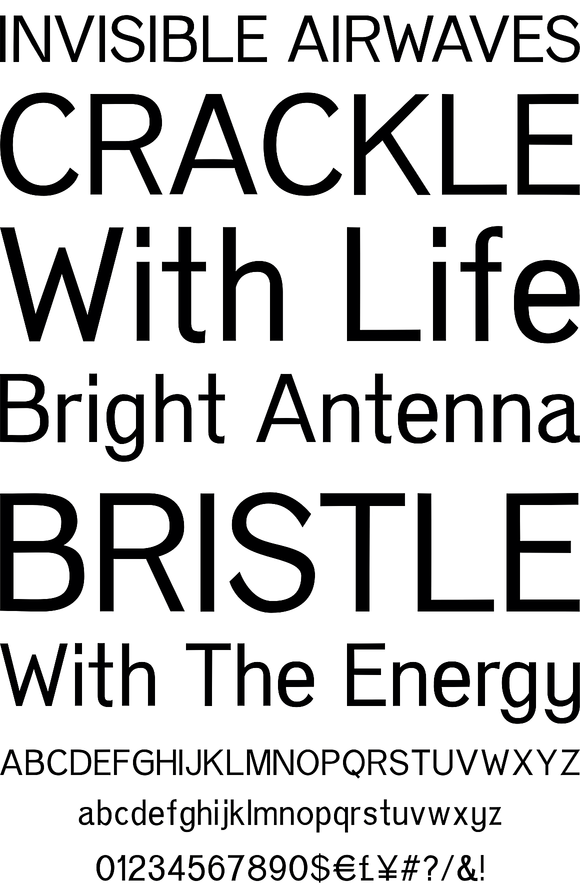
Eurydome
Eurydome is one of Jupiter's many moons, and was named after Eurydome, the mother of the Graces in Greek mythology. Eurydome was inspired by the Grotesque face Venus, with an additional flair added to the lowercase a, b, d and g. Eurydome was designed to complement any display face that may be used in your project. Add grace to your layout, with Eurydome.